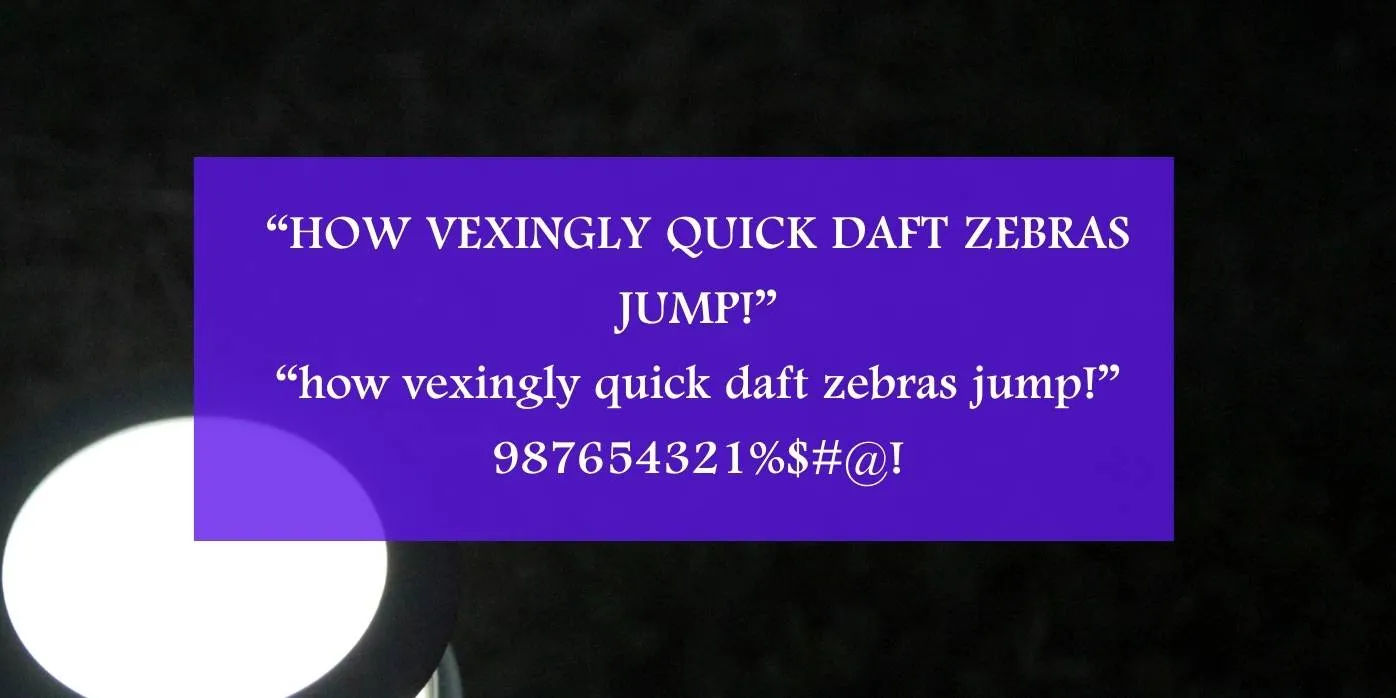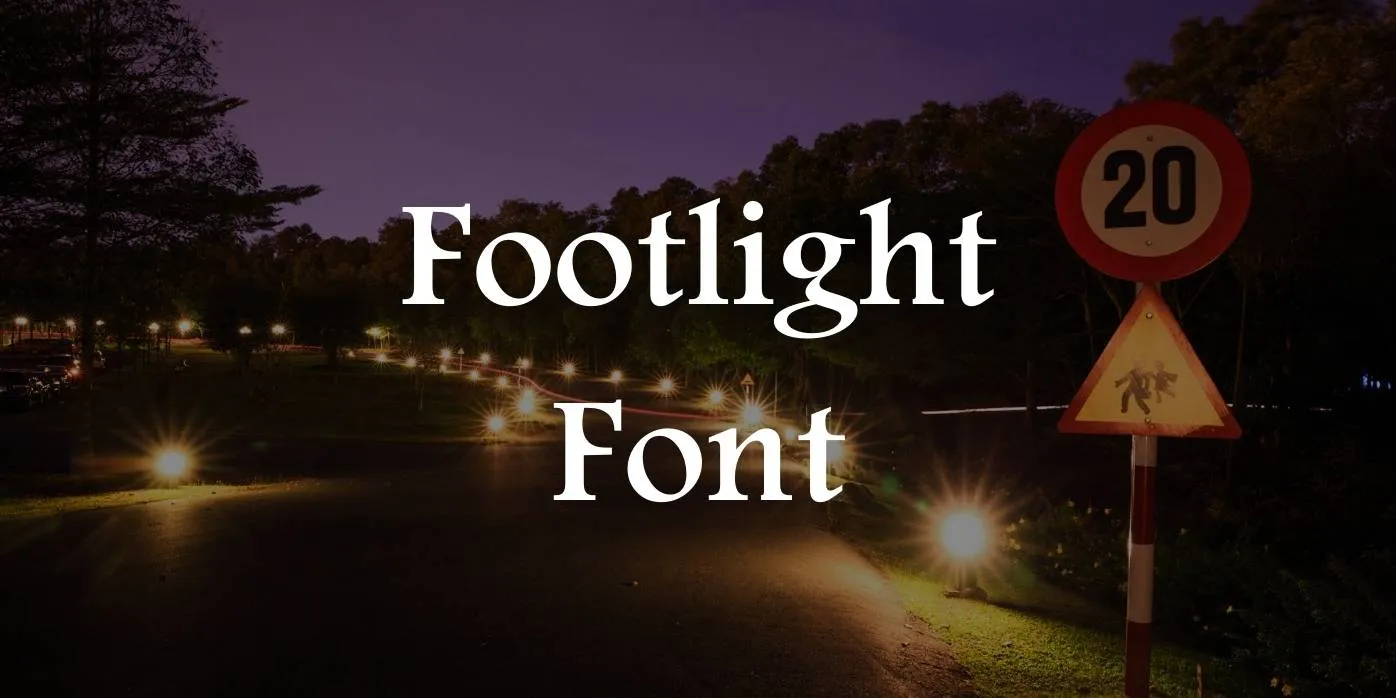
Footlight Font
Here, we are going to present a very stylish typeface that is known by the name Footlight Font. This amazing typeface belongs to Ong Chong Wah. It belongs to the serif family. This typeface has keen and attractive features.
It is a very stylish typeface that was designed for use in headlines and other display settings. It is characterized by its tall, thin letters, which give it a very elegant look. You can also use cambo font which is closest to this font family. This typeface is perfect for use in invitations, headers, or any other situation where you want to add a touch of class to your text.
Its bold features make it perfect for many designs.